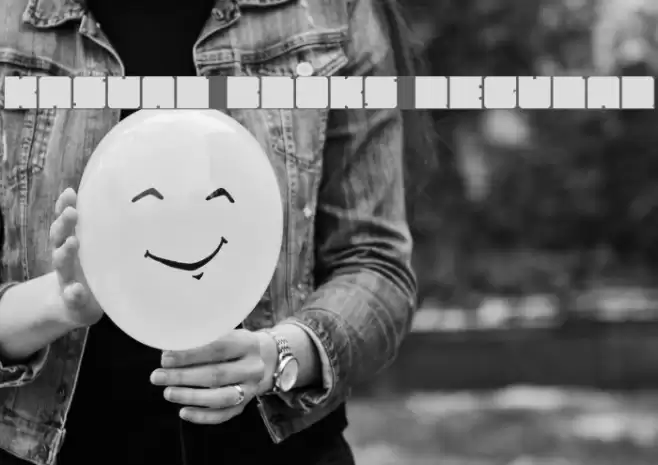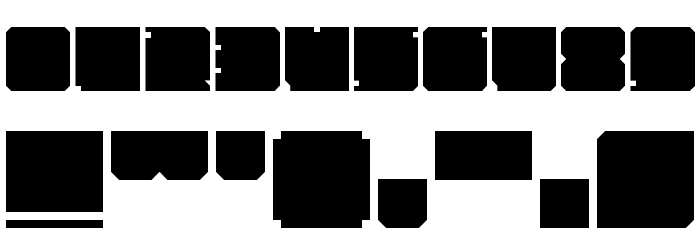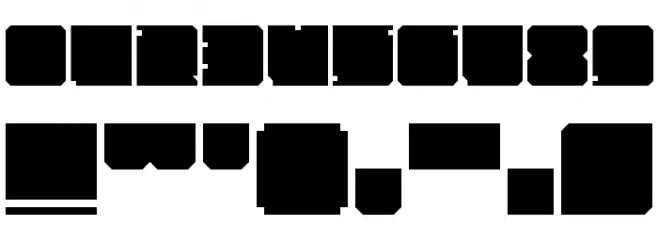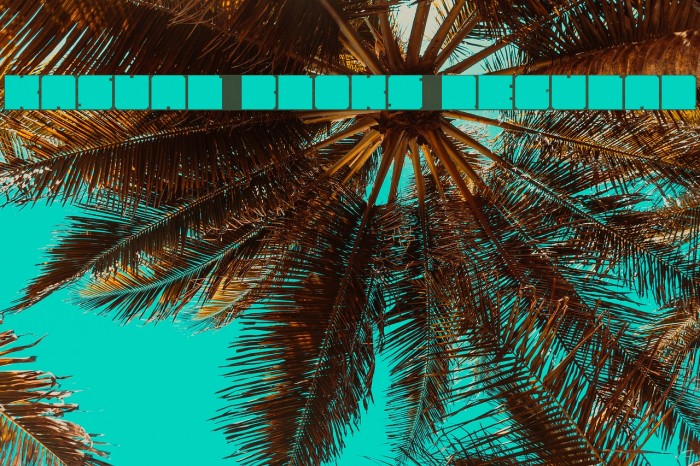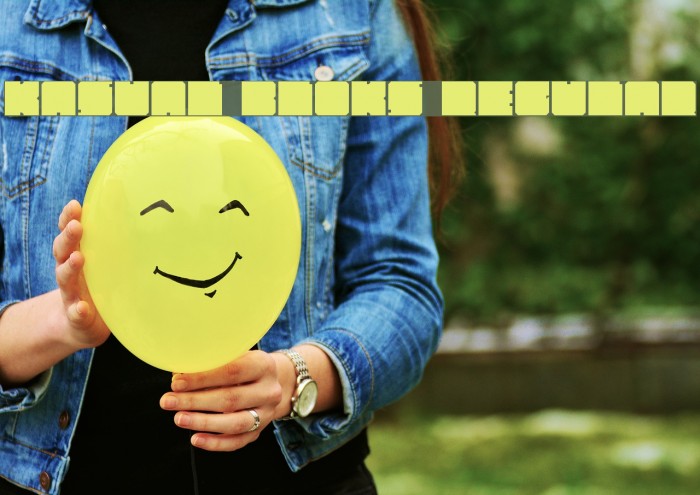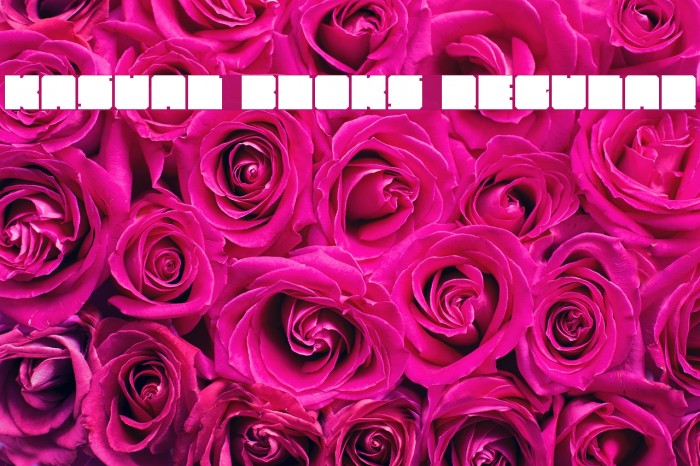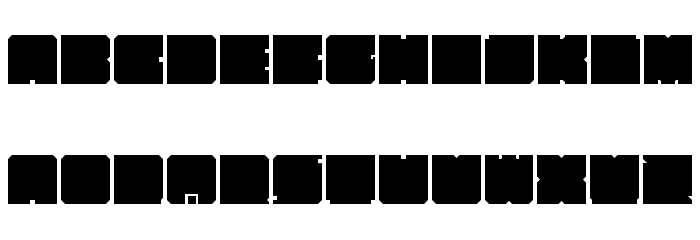
Kasual Bloks Regular Font
Kasual Bloks Regular Description
This font features a bold, blocky design with a modern and geometric aesthetic. Each character is crafted with a uniform thickness, creating a strong and impactful visual presence. The letters are tightly spaced, contributing to a compact and cohesive look. The style is reminiscent of digital or pixel art, making it suitable for projects that require a futuristic or tech-inspired feel. The uppercase and lowercase letters maintain a consistent style, while the numbers and special characters integrate seamlessly into the overall design.
A bold, geometric font with a modern, tech-inspired aesthetic from Uncategorized fonts.
- Proposed Projects: Ideal for digital art, tech branding, video game design, and futuristic-themed posters.
- Character Spacing: Tight